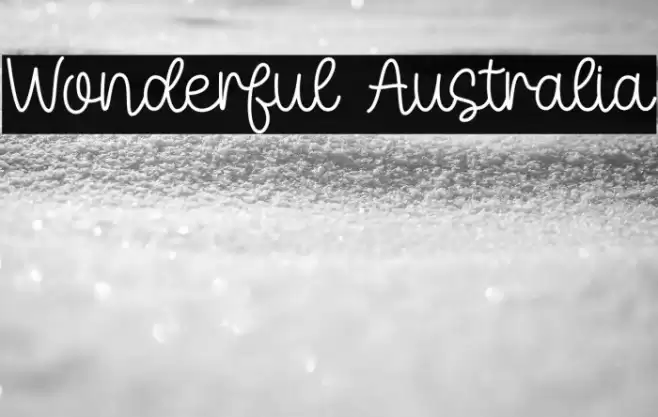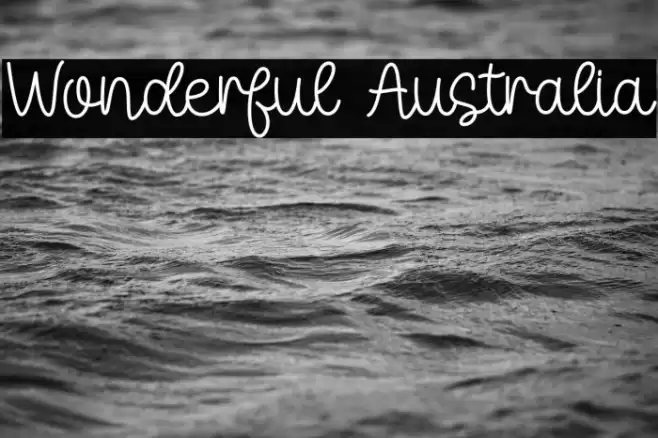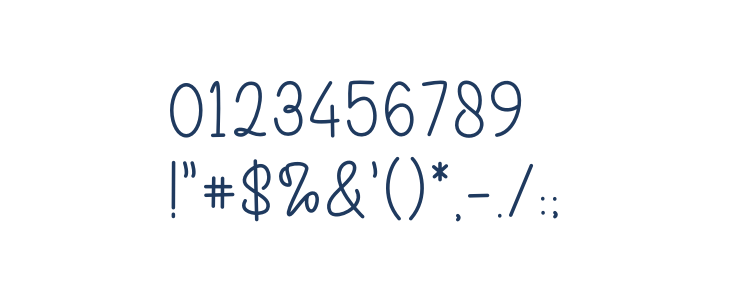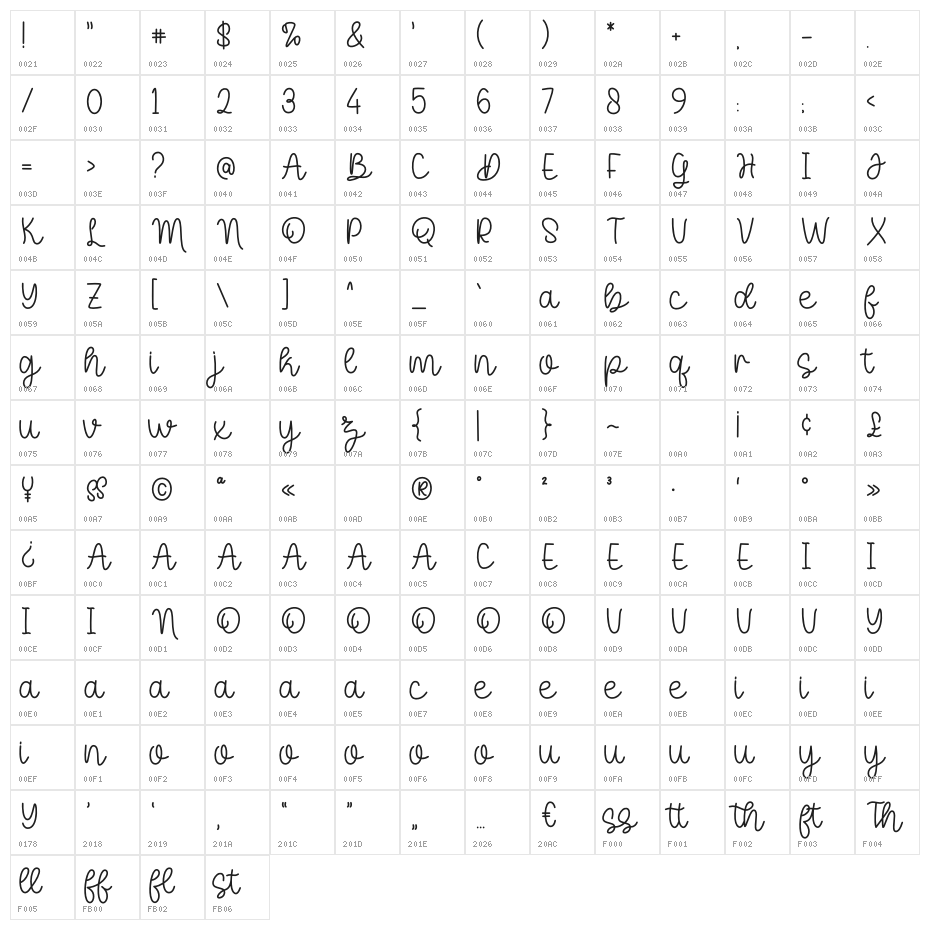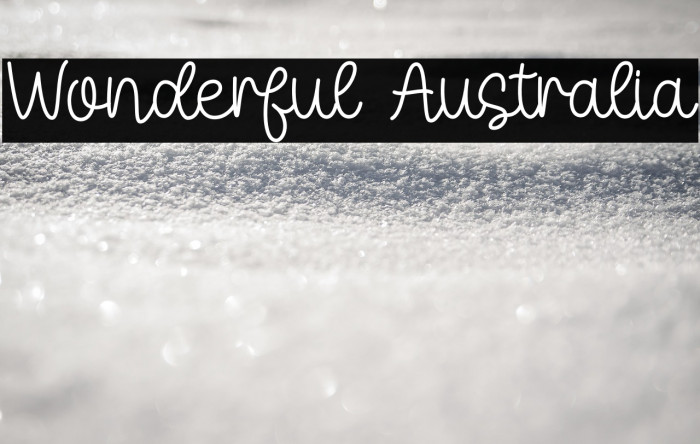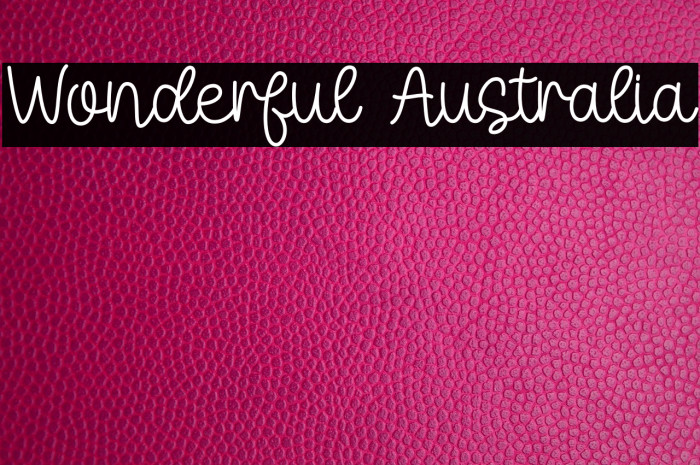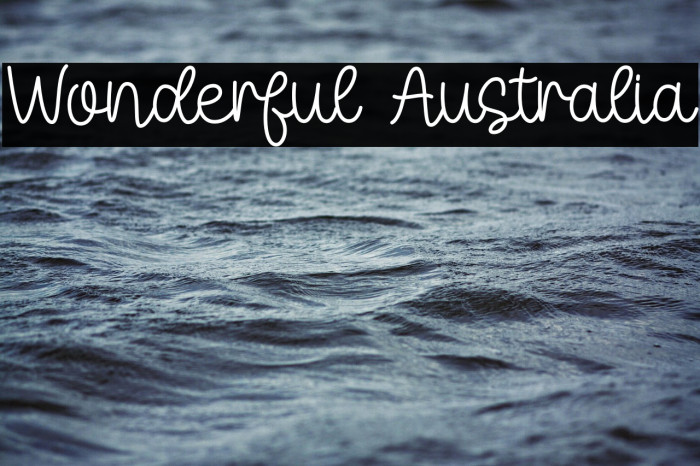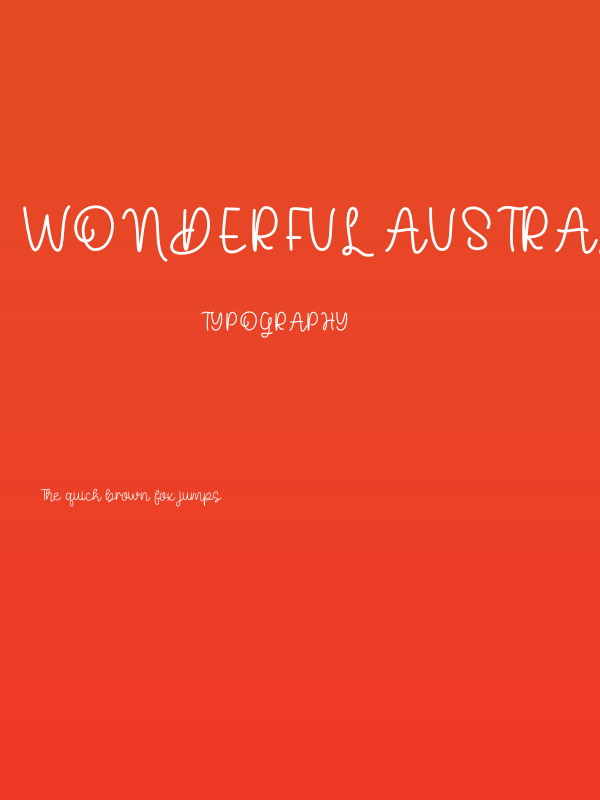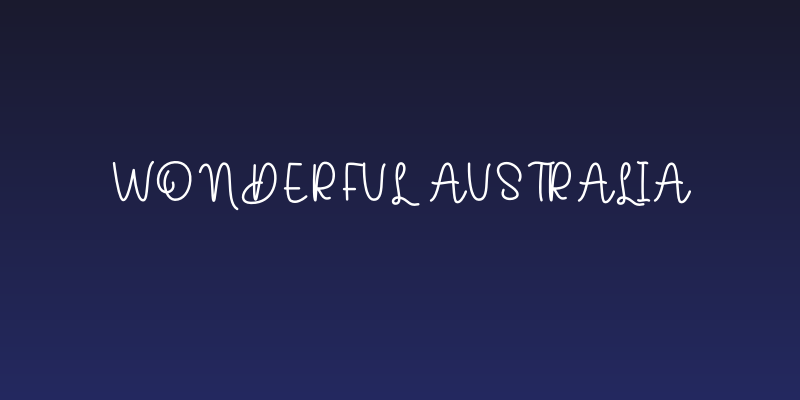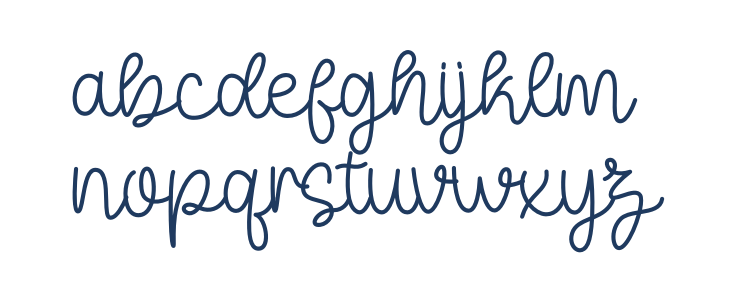
Wonderful Australia Font
Wonderful Australia Description
This font features a playful and whimsical script style, characterized by its flowing, interconnected letters. The uppercase letters maintain a consistent height with a slight slant, while the lowercase letters exhibit a more pronounced cursive flair. The numerals are rounded and maintain a uniform size, complementing the overall design. Special characters are crafted with the same playful touch, ensuring cohesion across all elements. The font's strokes are consistent in width, providing a balanced and harmonious appearance. Its casual yet elegant style makes it suitable for a variety of creative applications.
A playful, whimsical script font with flowing, interconnected letters from Regular fonts.
- Proposed Projects: Ideal for greeting cards, invitations, logos, and playful branding projects.
- Overall Style: Playful, Whimsical
- Use Case: Logos, Invitations, Greeting cards